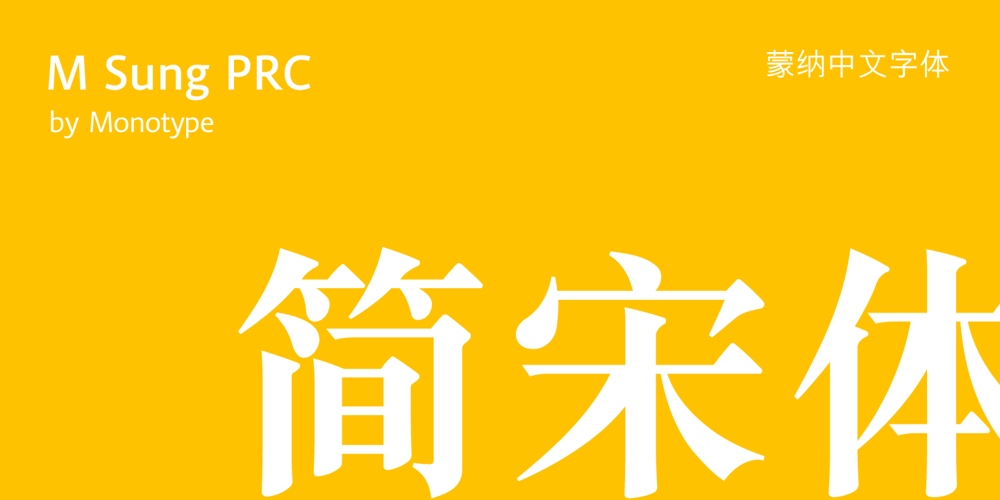
MSung PRC Font Family was designed by Monotype HK Design and published by Monotype HK. MSung PRC contains 5 styles and family package options. Song style typefaces originated in the age of woodblock printing in Song Dynasty. Being an essential Chinese type style for printing and publishing all since Ming Dynasty. Based on the Kaishu calligraphic script, its structure has evolved, regularised and standardised with thick stems (豎), thin horizontal strokes (橫) and triangular finials. Dots (點), hooks (勾) and downstrokes retained some features of calligraphy, hence an appropriate choice for continuous reading. The typeface is equipped with a variety of stroke weights, all highly legible .